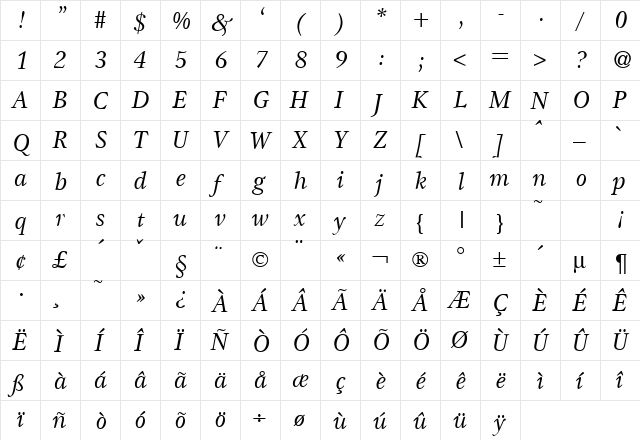
Game Italic
Design Context for Game Typeface
Game is a composed and adaptable typeface that performs quietly and consistently across a wide range of design contexts. Its italic angle brings a sense of urgency and motion to the letterforms.
Pro Tip: Try Game for annotation and caption copy alongside an upright companion — the contrast in angle creates a dynamic but ordered typographic system.